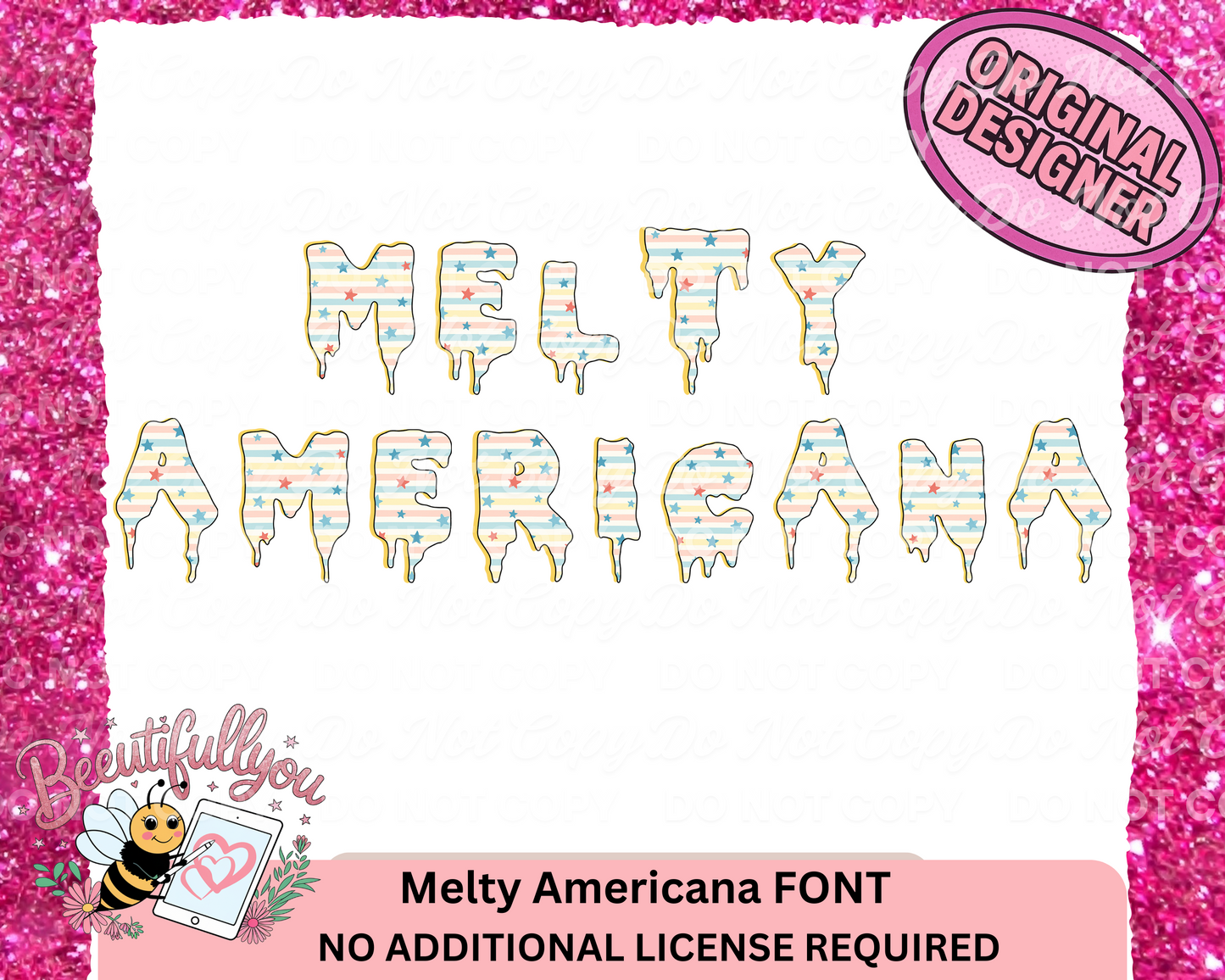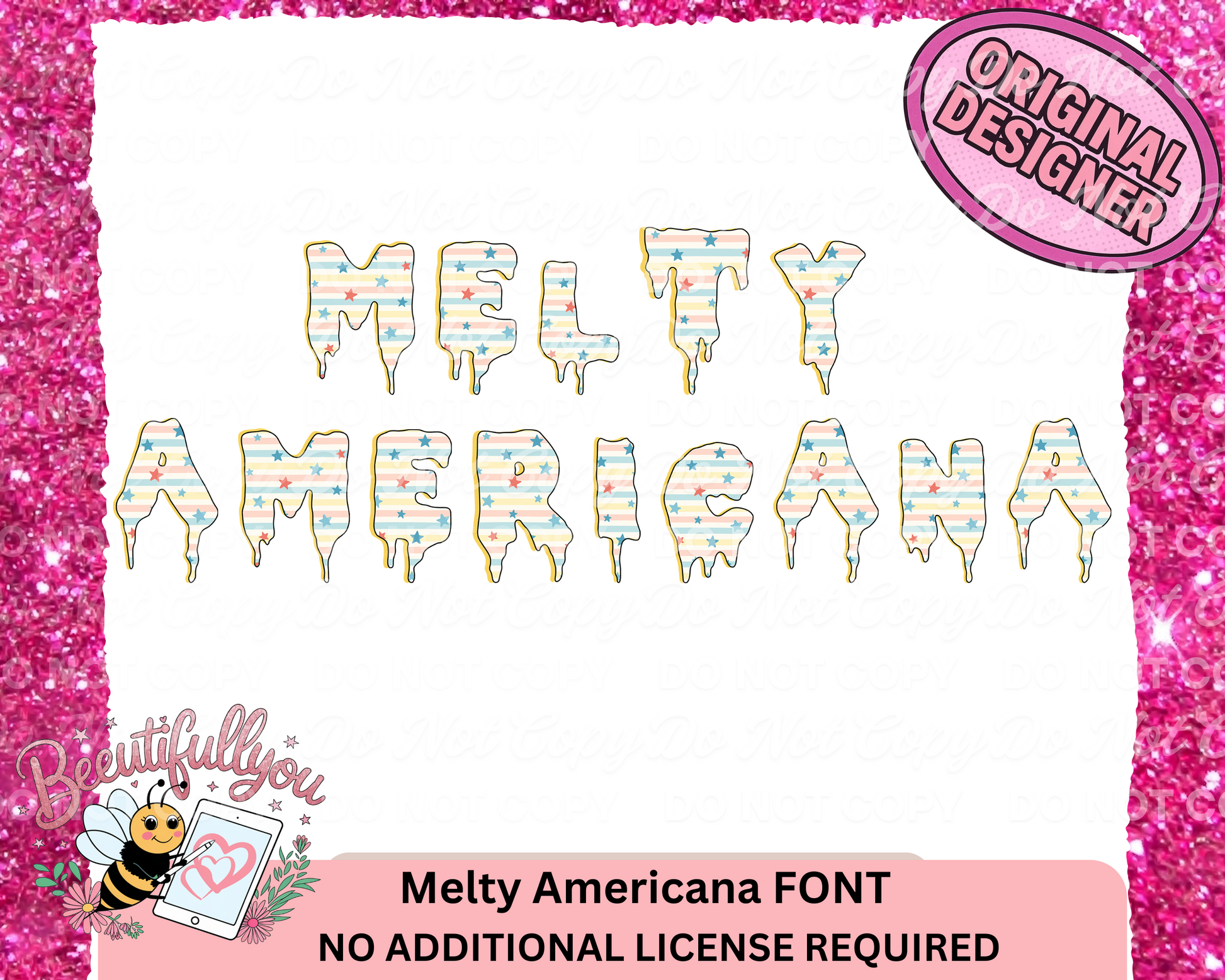
Melty Americana Font | Patriotic Drip Alphabet PNG Letters
ntroducing the Melty Americana Font – a bold, drippy, red-white-and-blue themed font set featuring melty letters decorated with patriotic stars and stripes. Perfect for 4th of July designs, summer projects, and festive merch! This font comes as a high-quality PNG alphabet set, ready to drag and drop into your projects.
Hand-drawn, original style